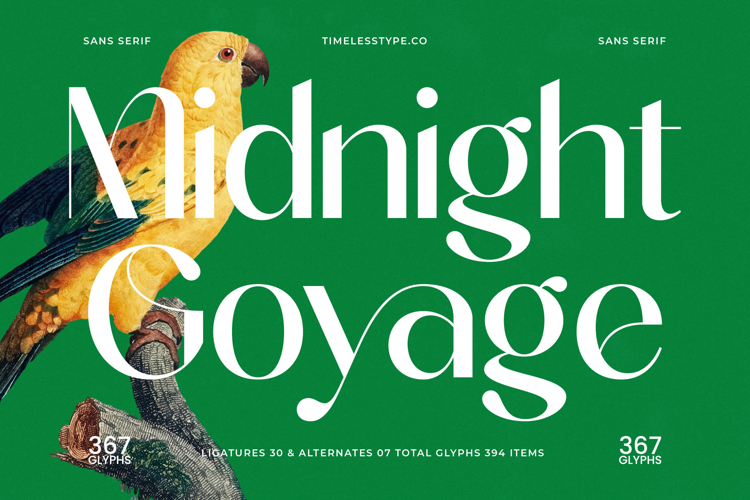
Midnight Goyage - Modern Sans Serif Font
The Midnight Goyage Typeface is a refined modern sans serif display font that combines sleek geometry with subtle decorative elegance. Featuring 30 ligatures, 7 alternates, and a total of 367 glyphs, this font offers designers a wide range of possibilities to create distinctive and polished typography. Its sharp lines and smooth curves bring a balance of minimalism and artistry, making it both modern and timeless. The typeface stands out with its sophisticated rhythm, perfect for projects that demand elegance, clarity, and high visual impact.
This font is especially effective for editorial design, where it can elevate magazine covers, feature headlines, and book titles with a clean yet stylish aesthetic. Its alternates and ligatures provide creative freedom to design unique and eye-catching compositions that set publications apart.